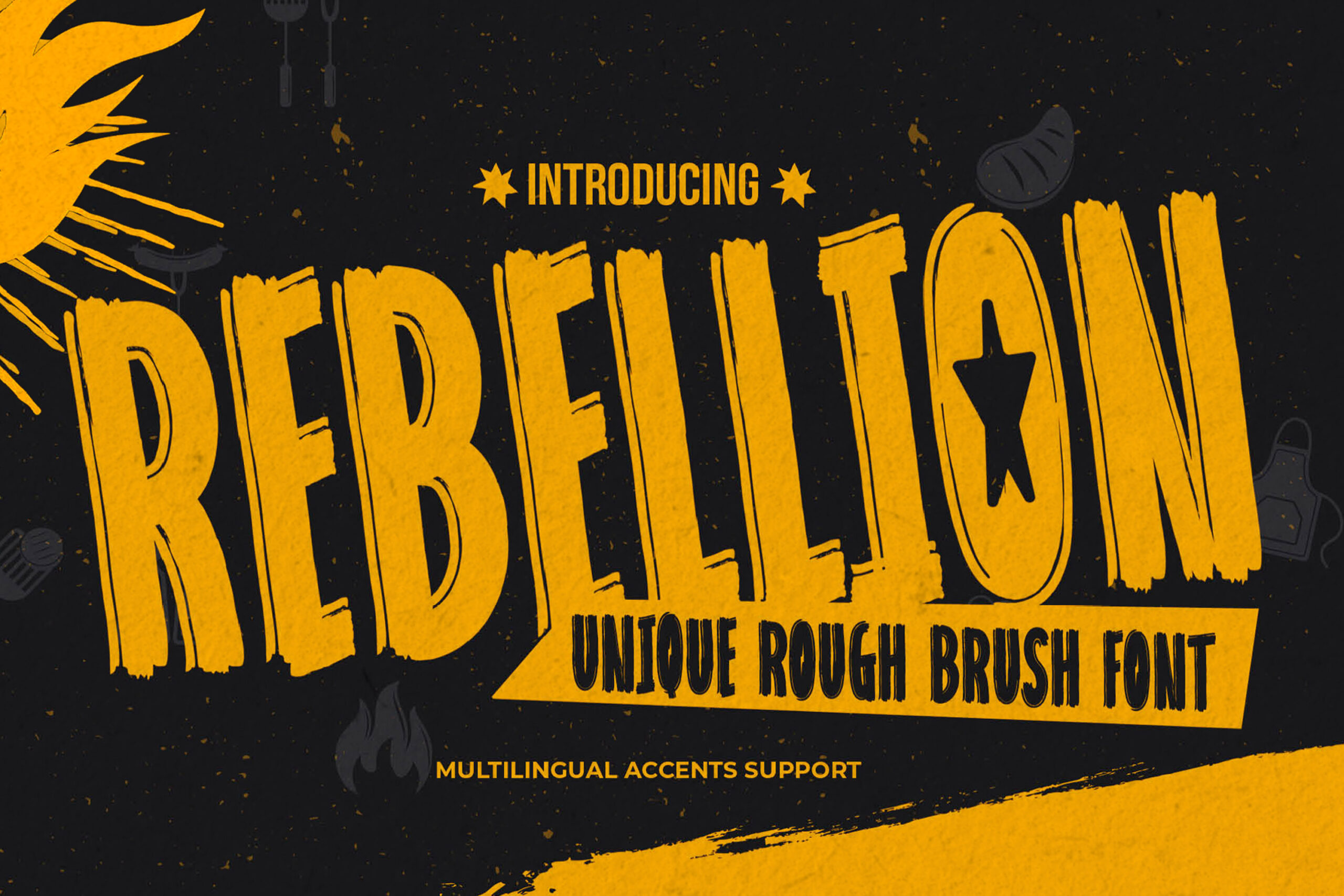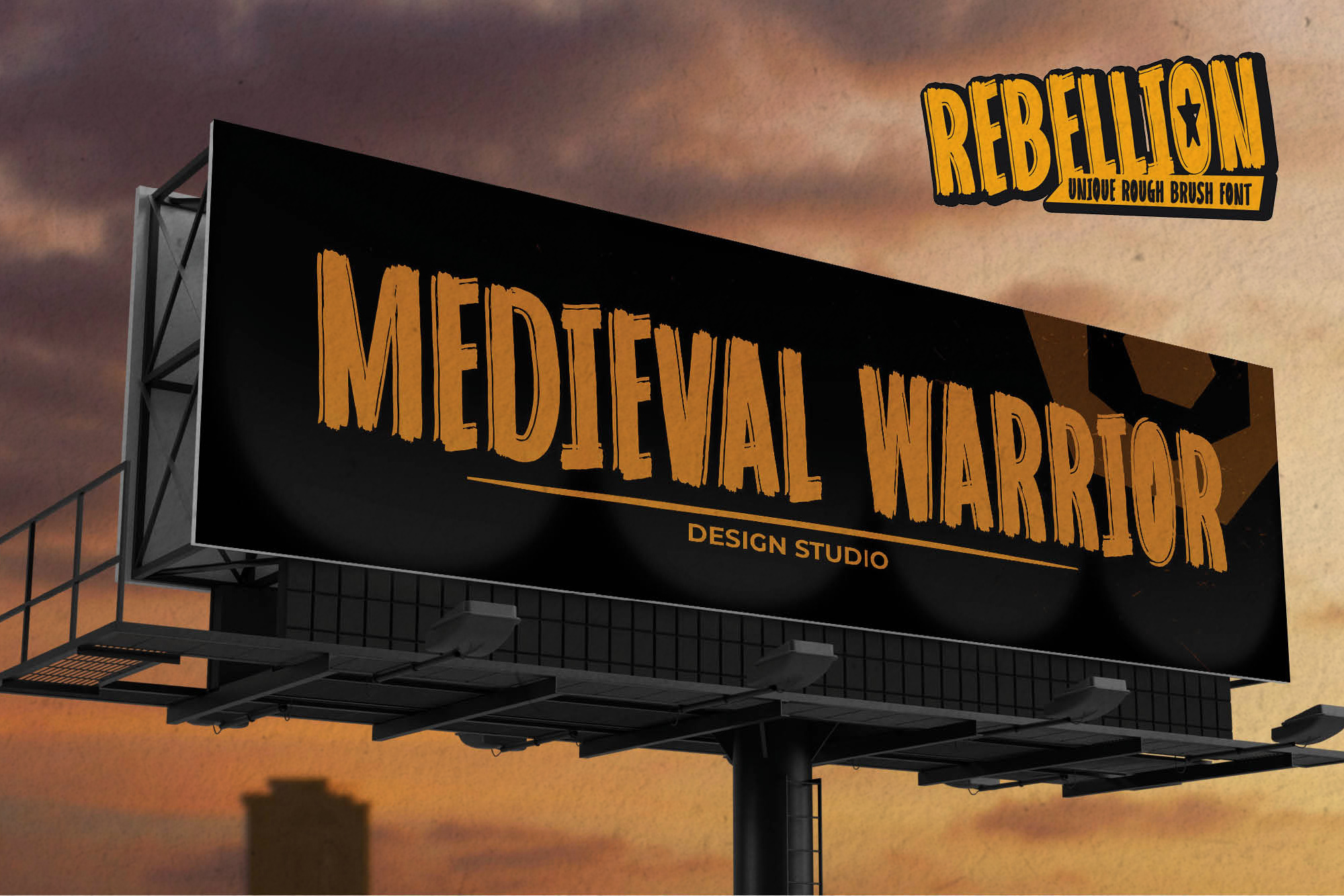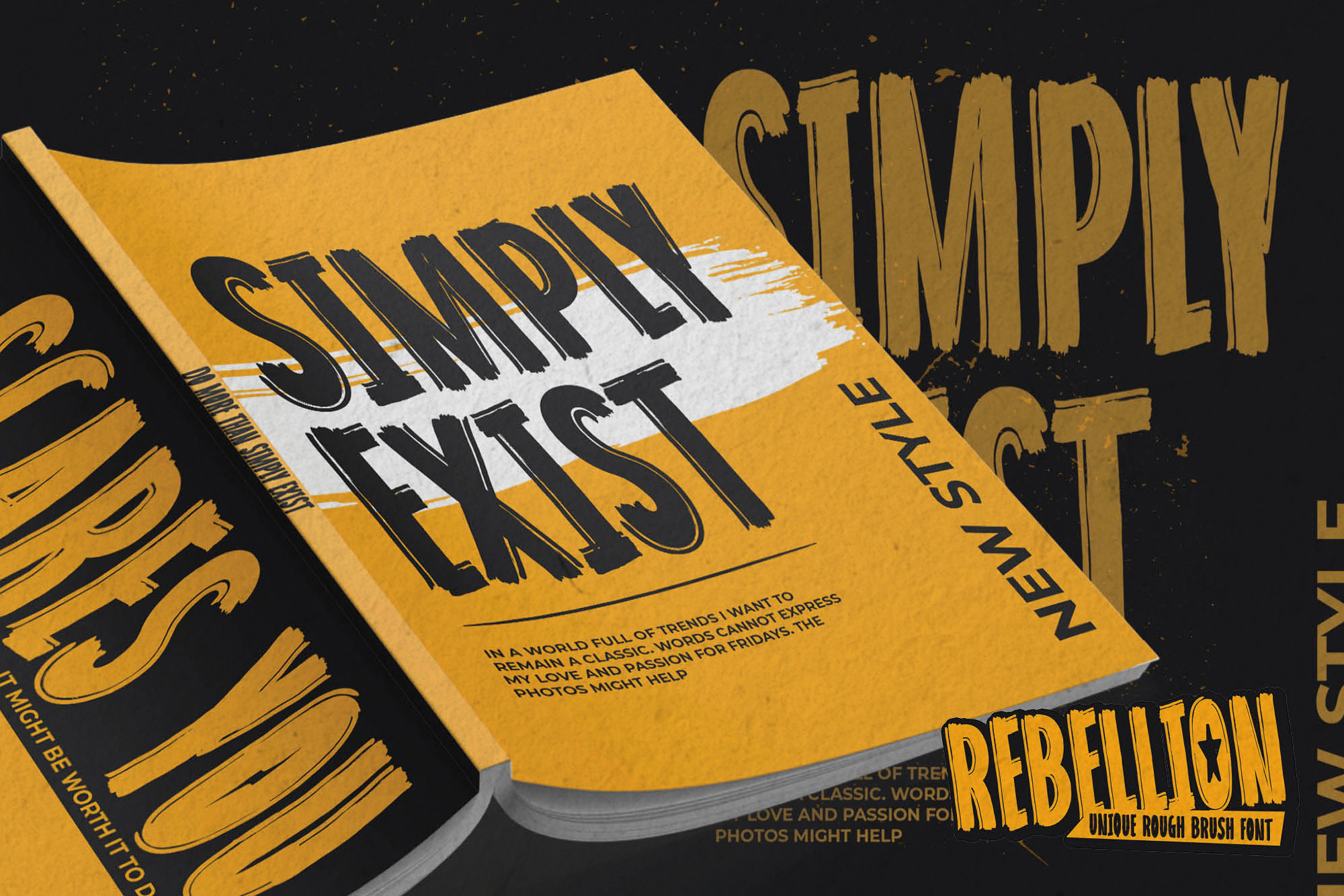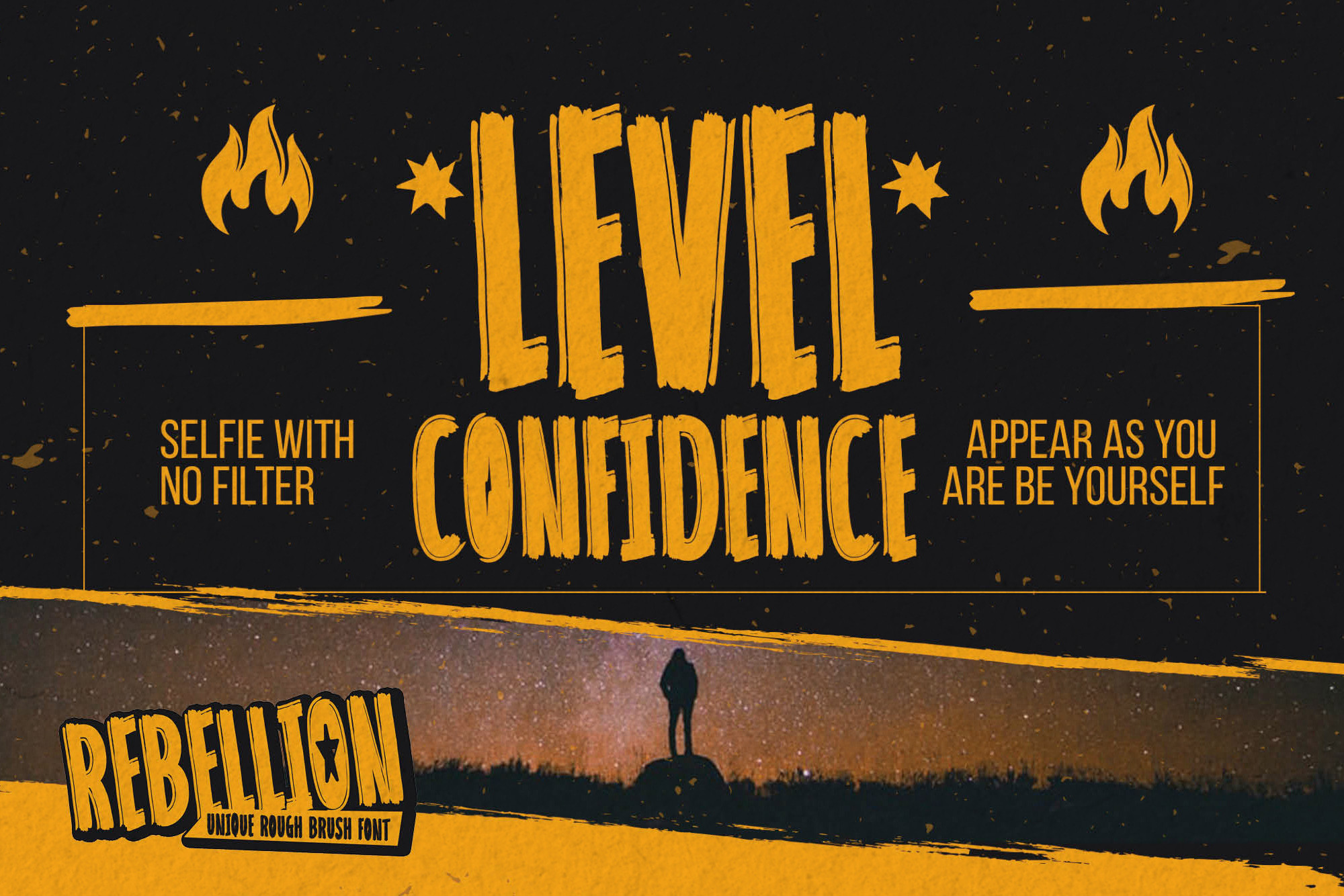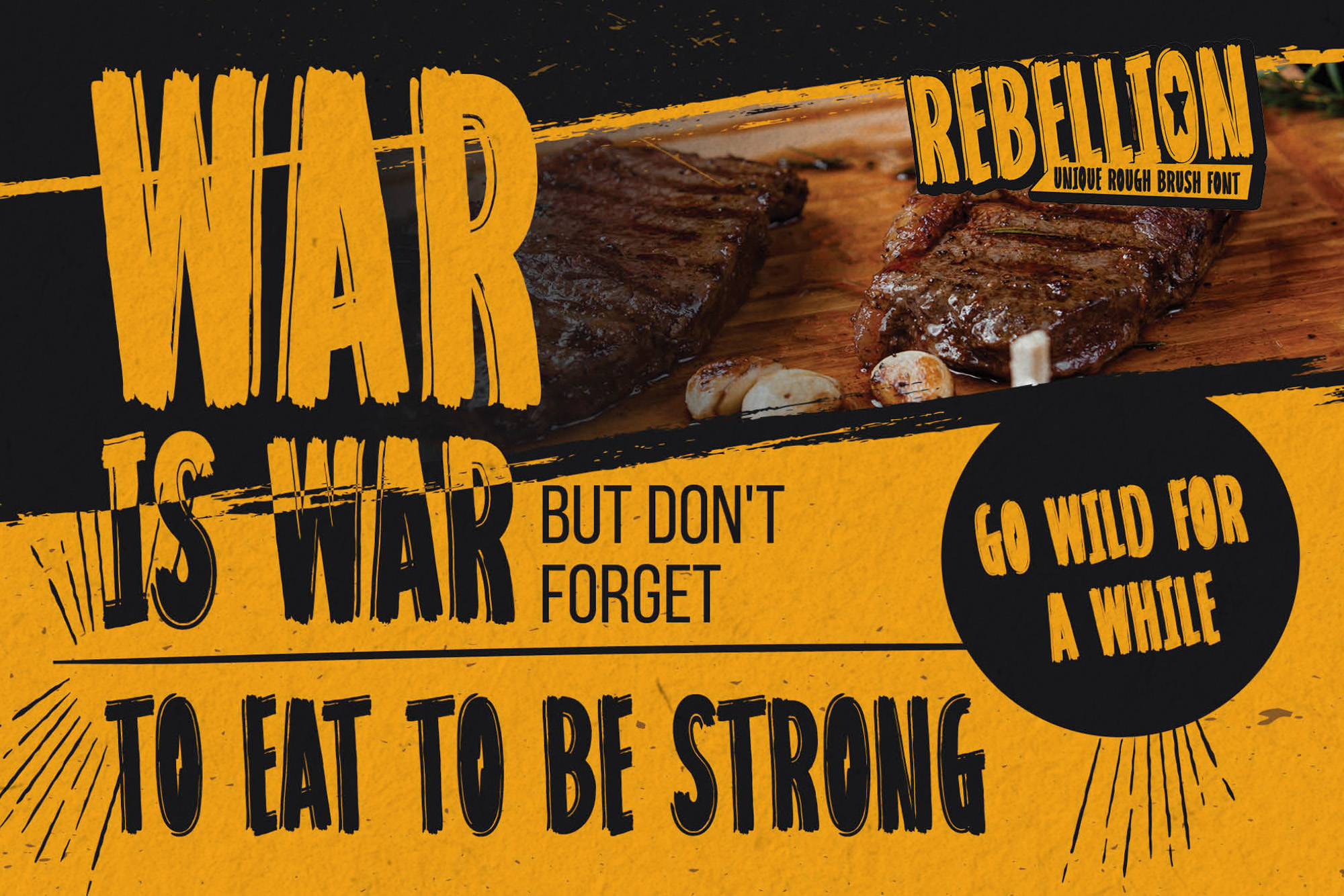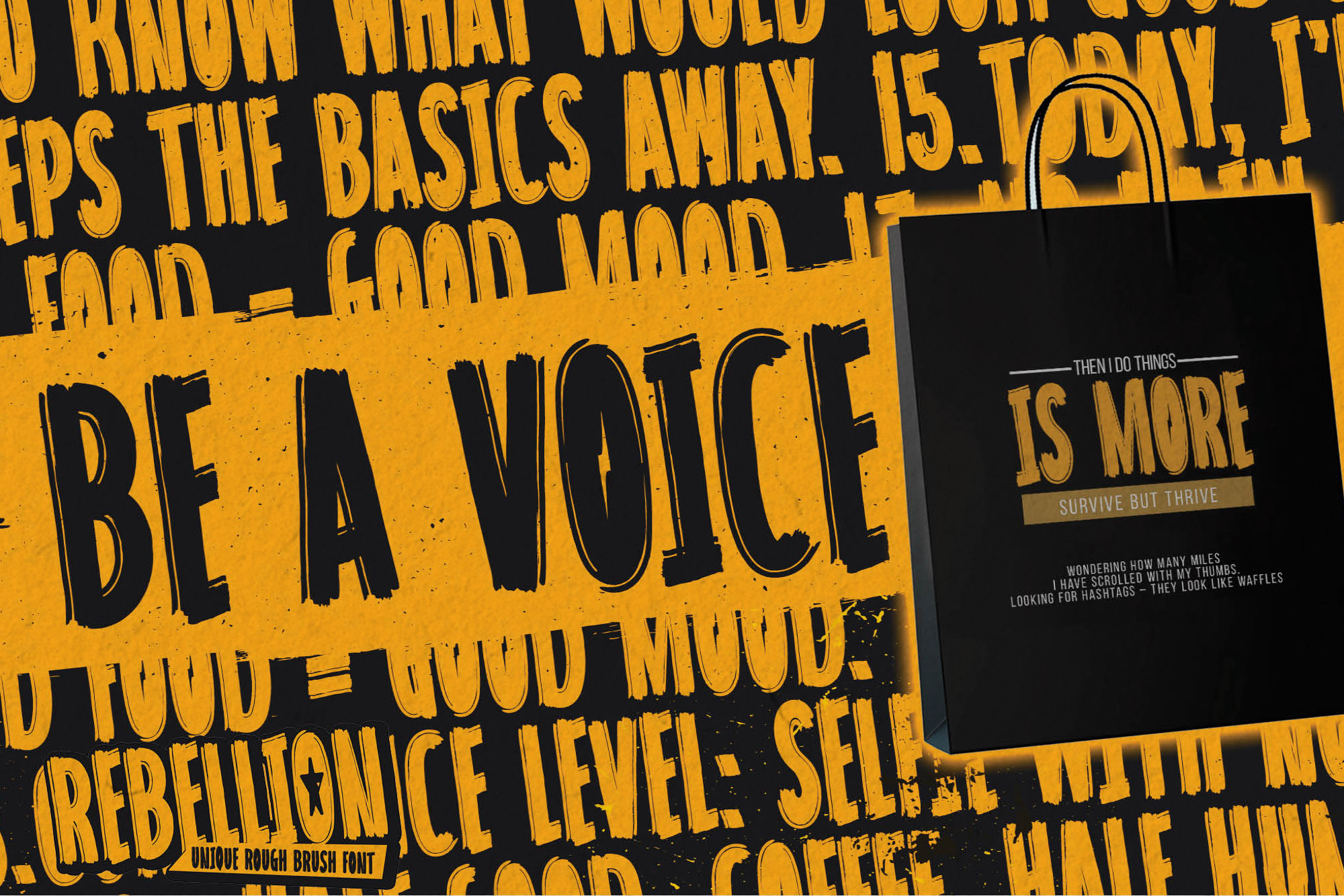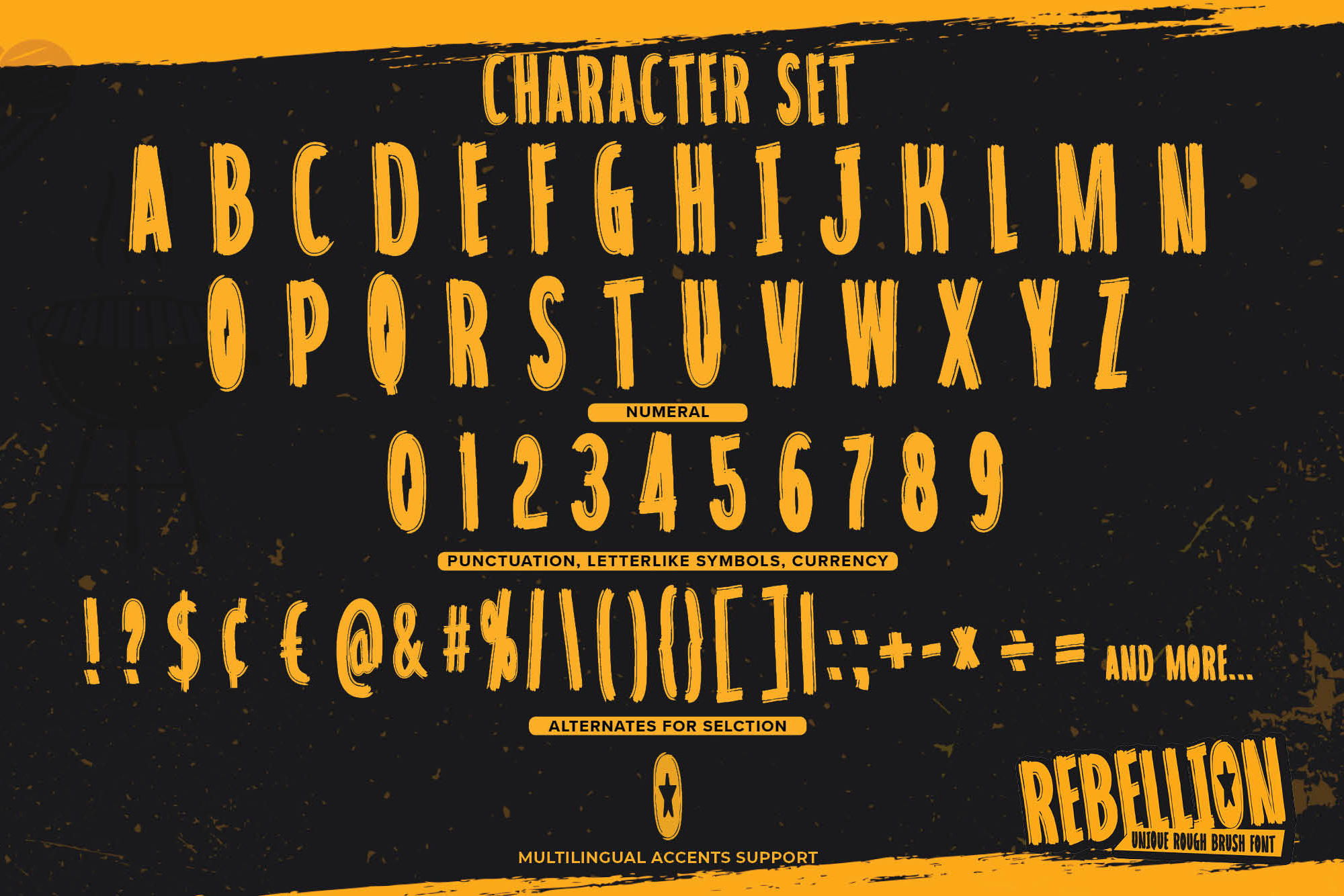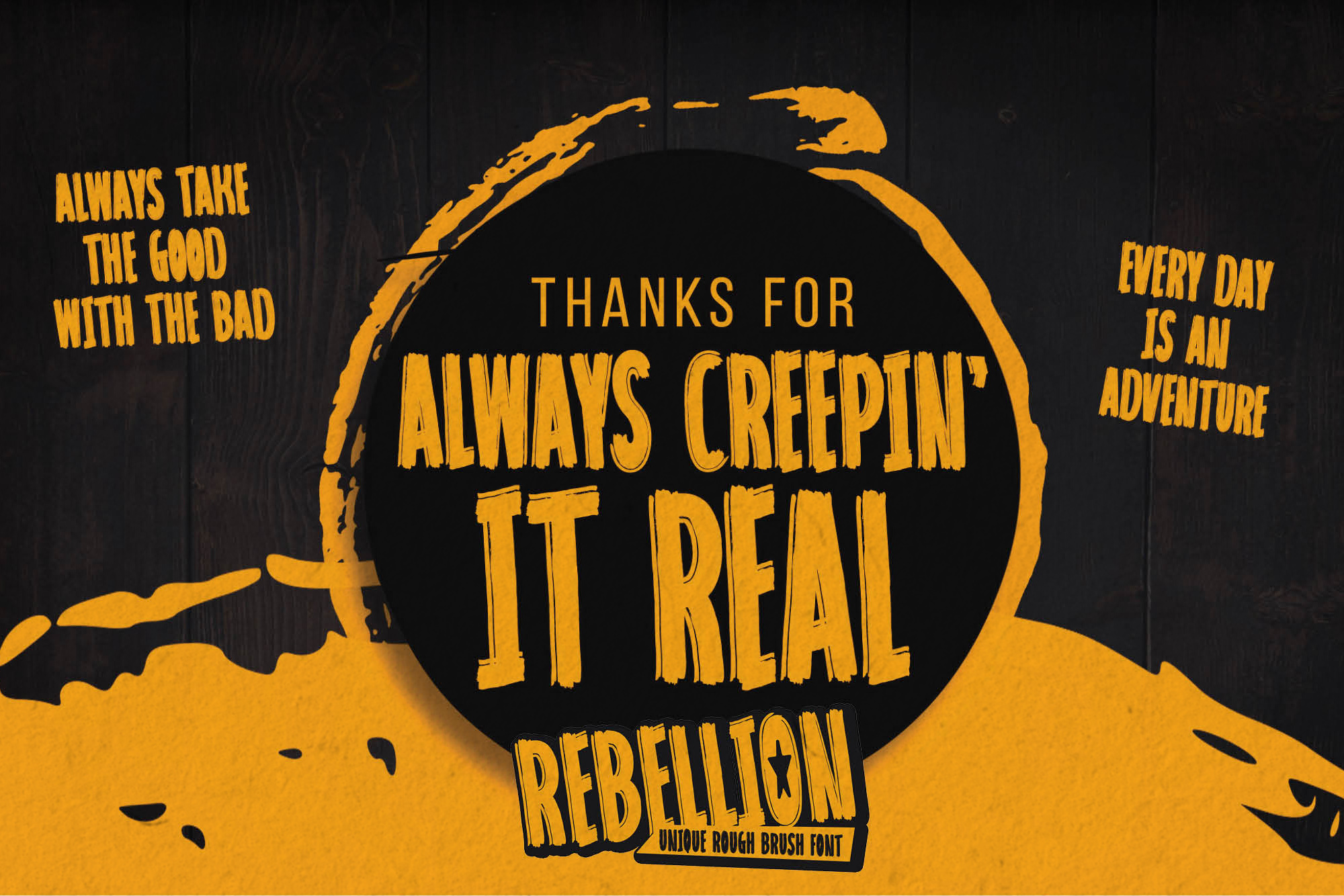
REBELLION – Unique Rough Brush Font, modern style and dramatic movement that is written casually and quickly.
REBELLION is a natural Hand Drawn feel. This handmade font will make your design has a beautiful natural touch for each details. It is perfect for any design project as Invitation,logo, book cover, craft or any design purposes,photos, photography overlays, signs, window art, scrapbooking, tags and so much more!
That is has charming, authentic and strong characteristic more natural look to your text.